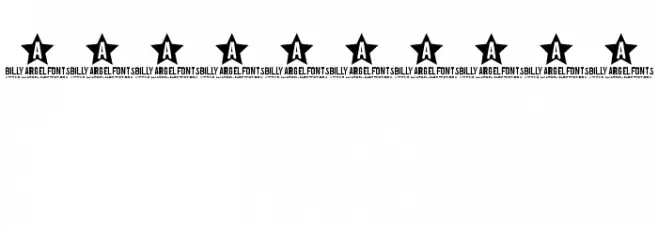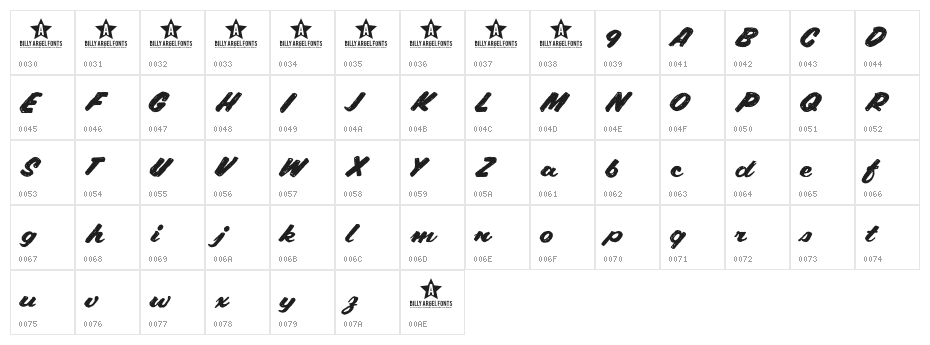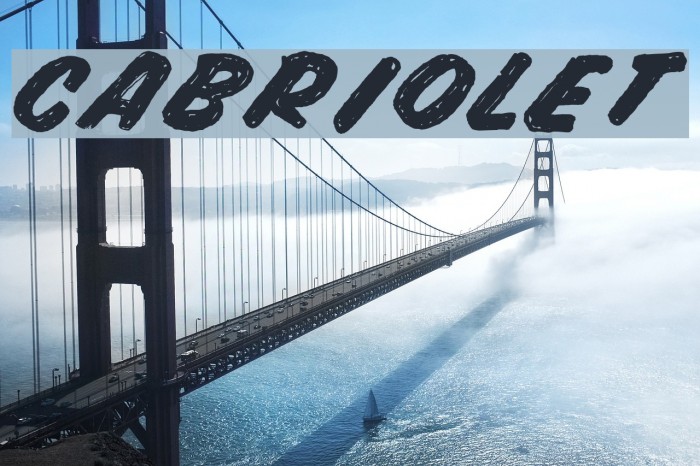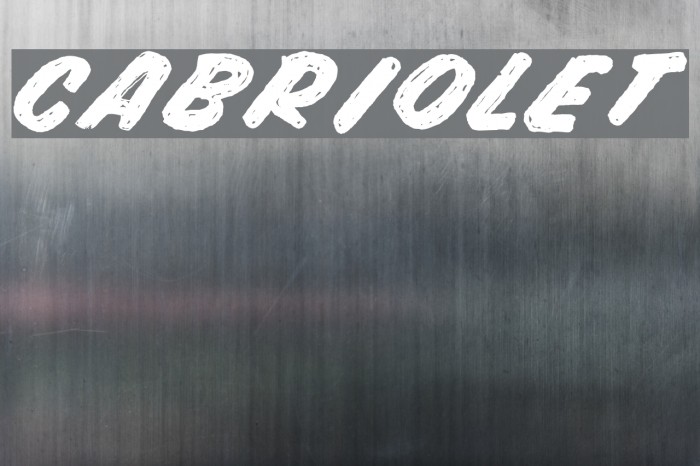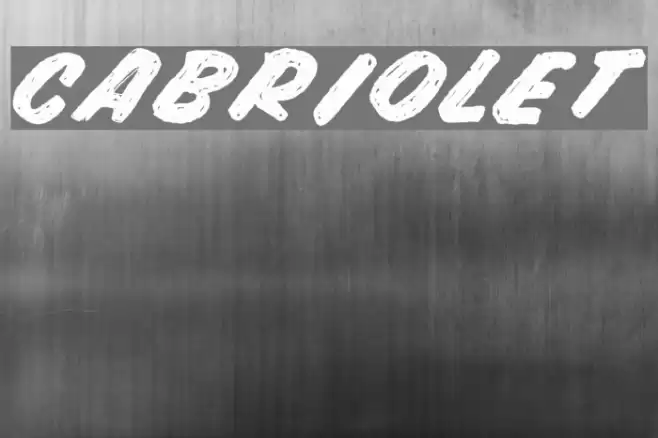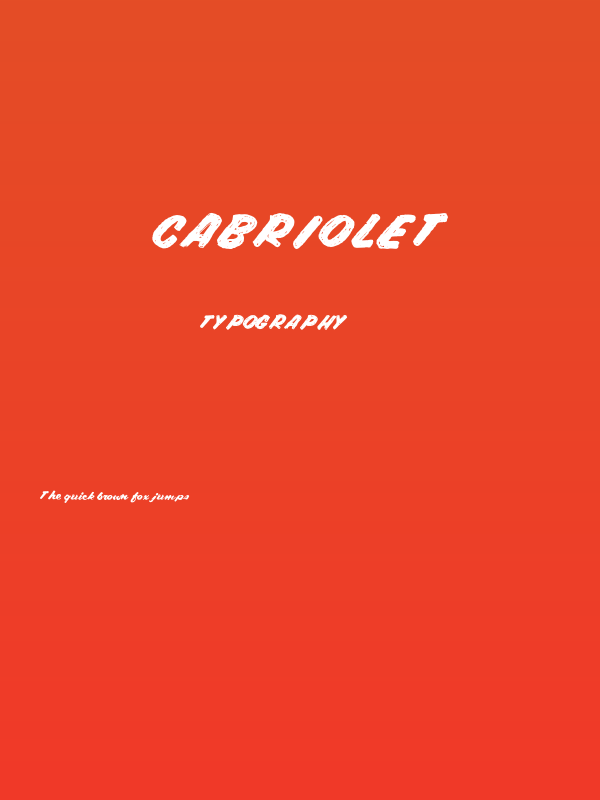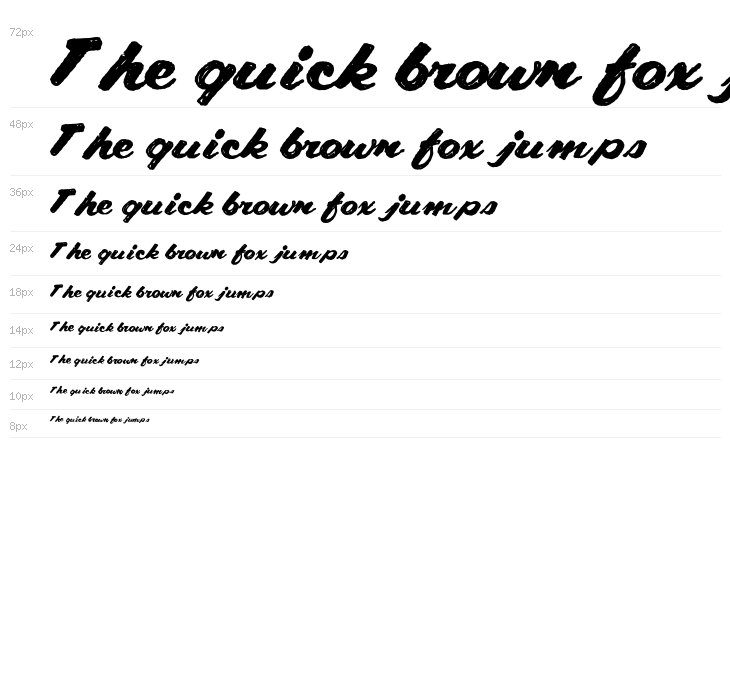
CABRIOLET Font
CABRIOLET Description
This font features a bold, brush-style script with a textured appearance, giving it a dynamic and energetic feel. The characters are slightly slanted, adding a sense of motion and fluidity. The uppercase letters are robust and prominent, while the lowercase letters maintain a consistent flow, enhancing readability. The font's distressed texture adds a vintage touch, making it suitable for designs that require a handcrafted or artistic vibe. The overall style is both expressive and impactful, ideal for making statements in design projects.
| Overall Style | Vintage, Decorative |
| Proposed Projects | Ideal for branding, poster design, album covers, and any project needing a bold, artistic touch. |